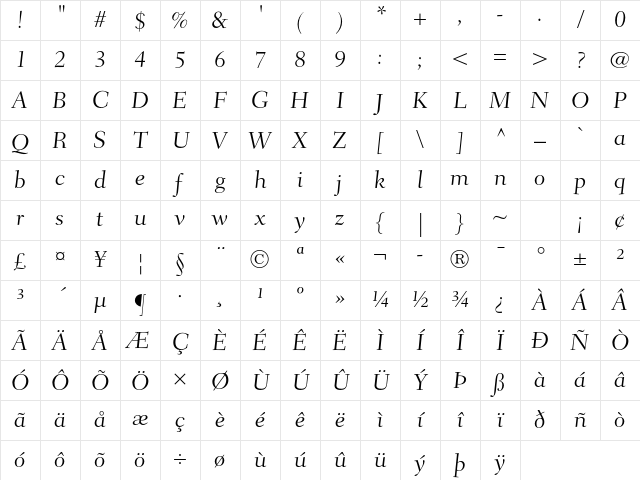
Fairfield LT Std 45 Light Caption
Style: 45 Light Caption
Designer: Rudolph Ruzicka, Alex Kaczun
Design Context for Fairfield LT Std
Fairfield LT Std is a composed and adaptable typeface that performs quietly and consistently across a wide range of design contexts. Its slender proportions lend an understated elegance to any composition.